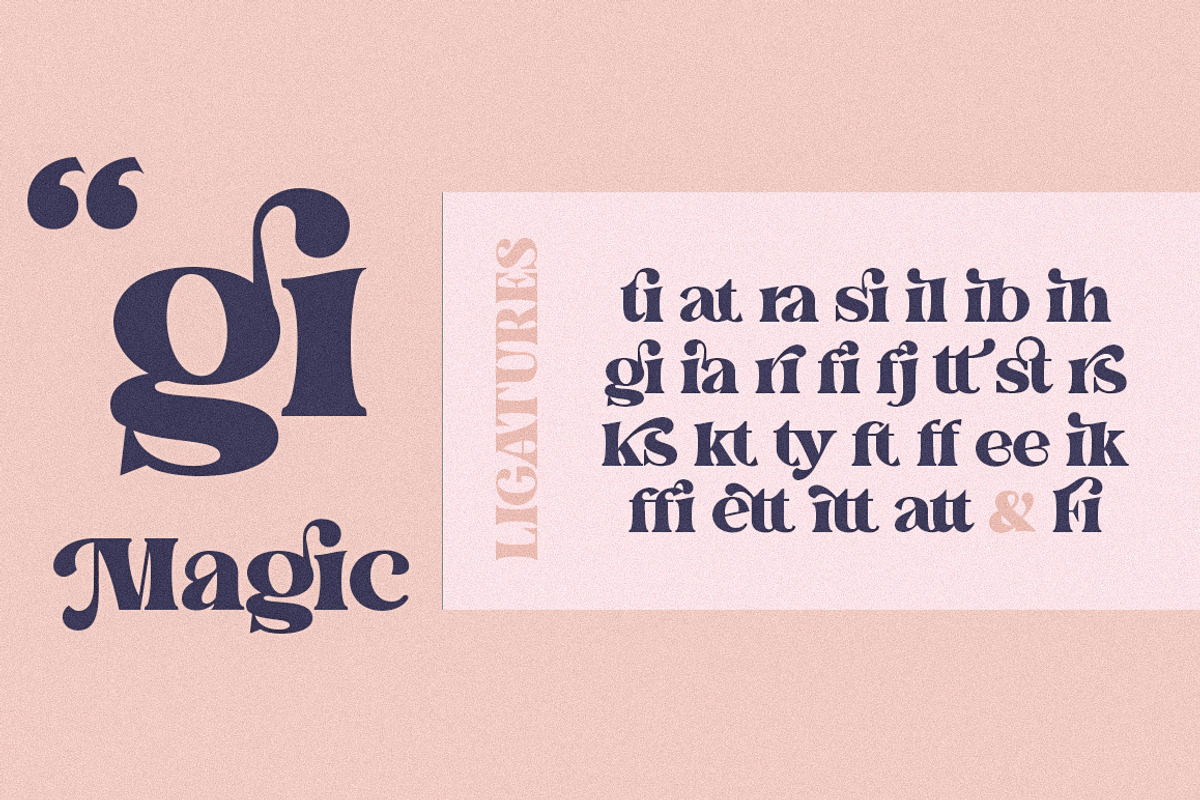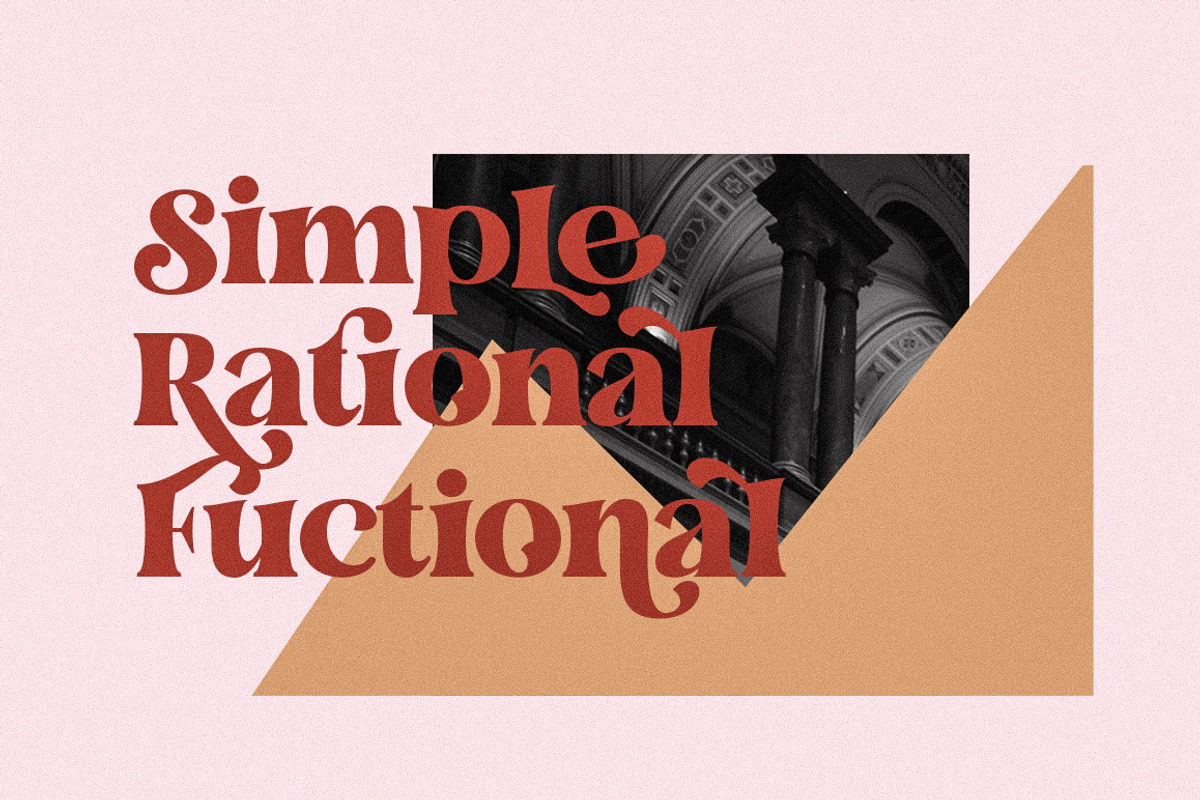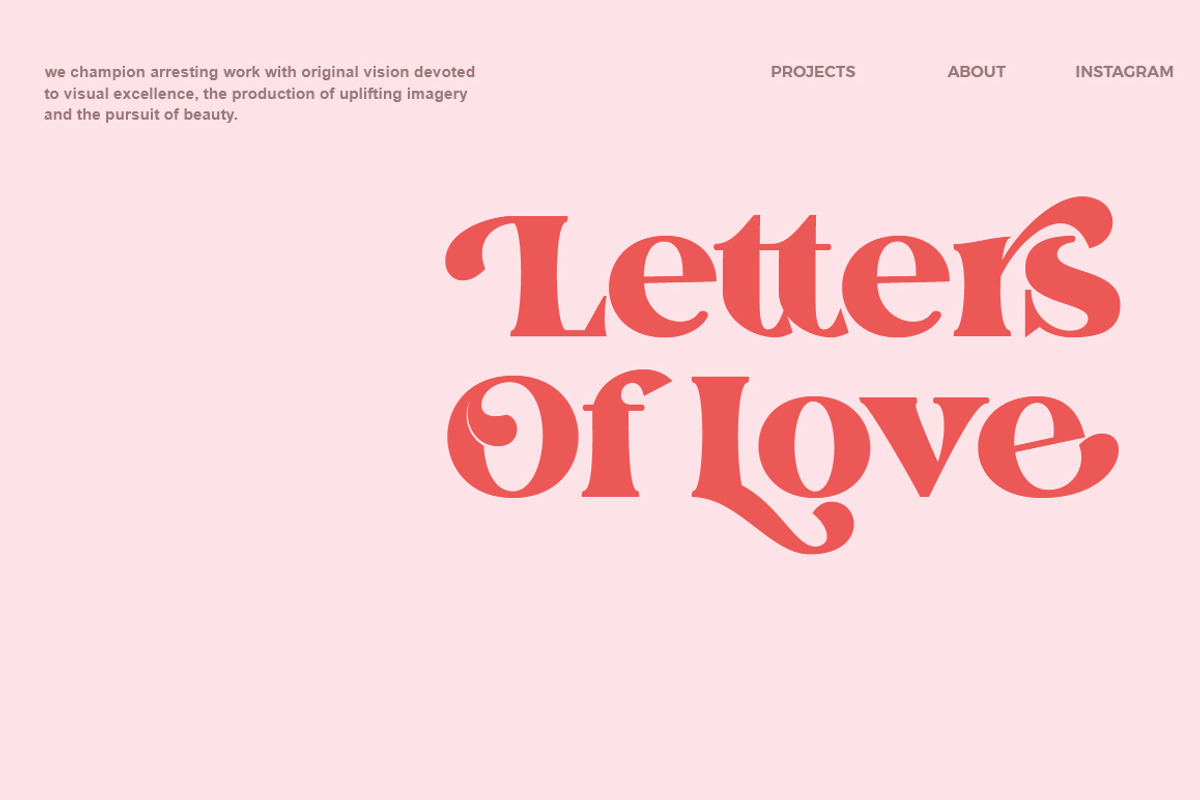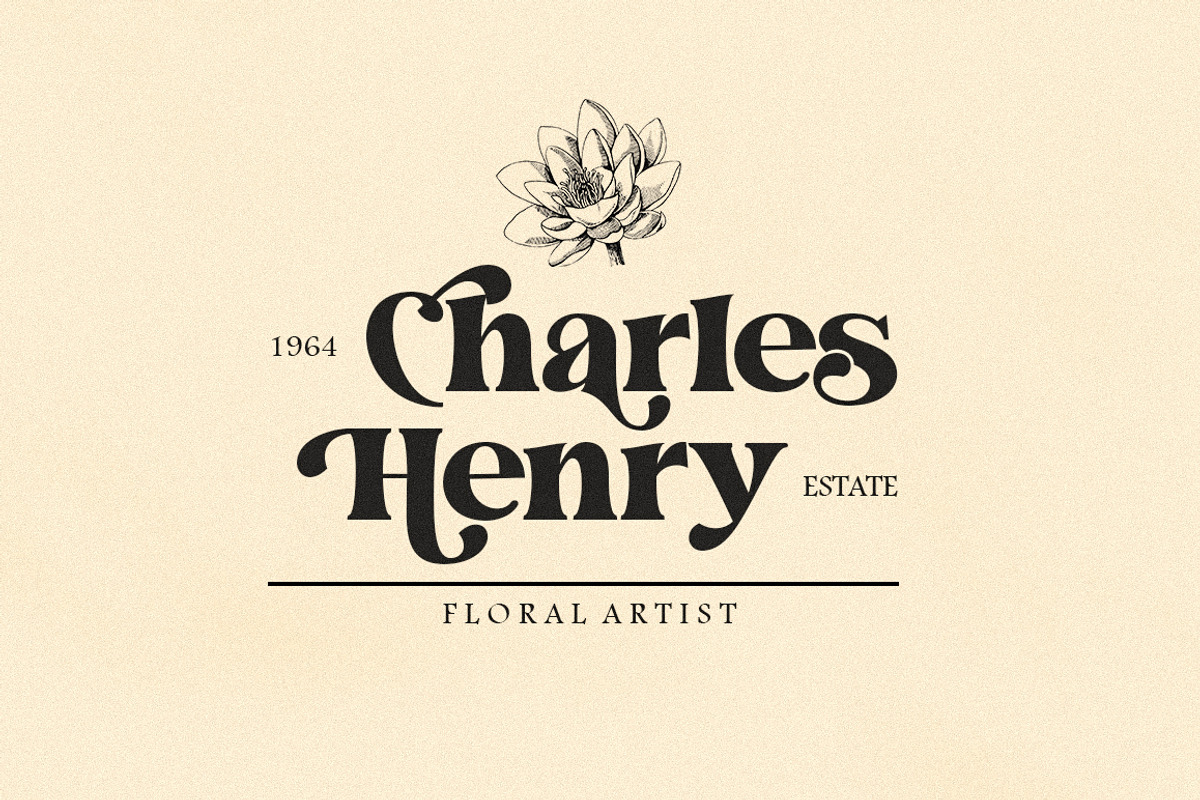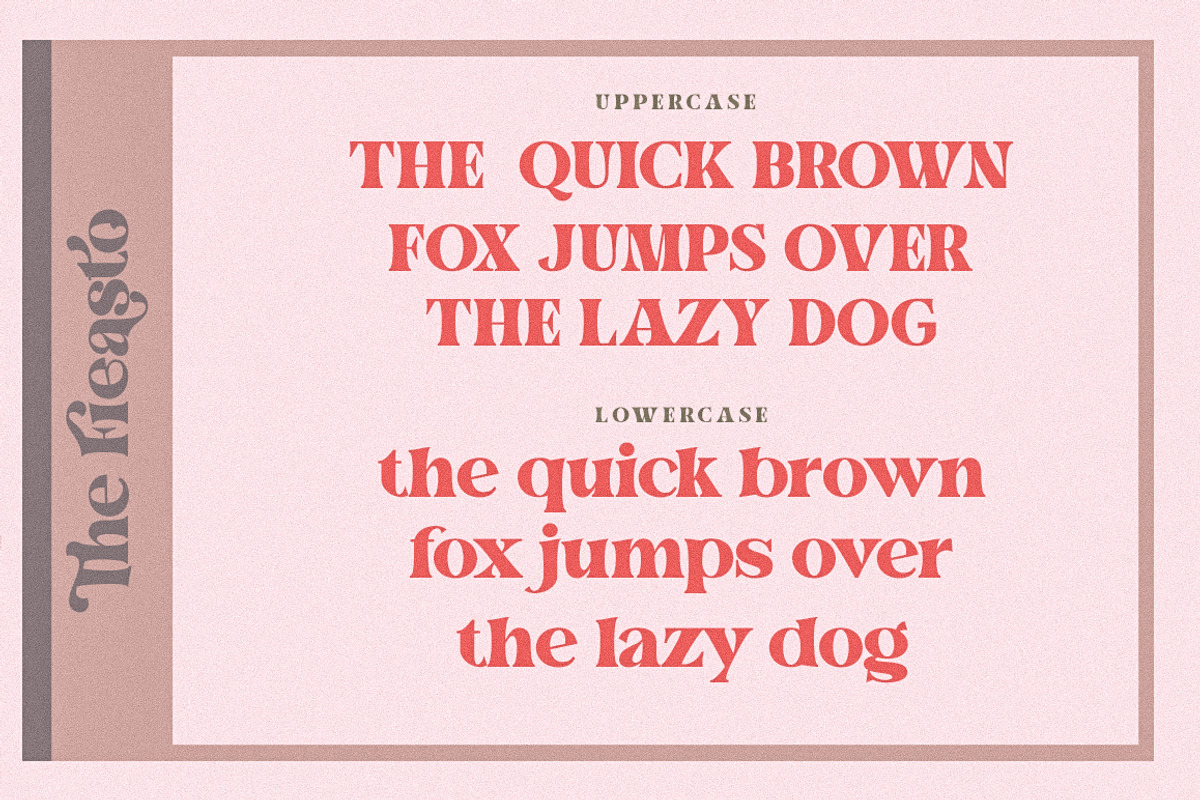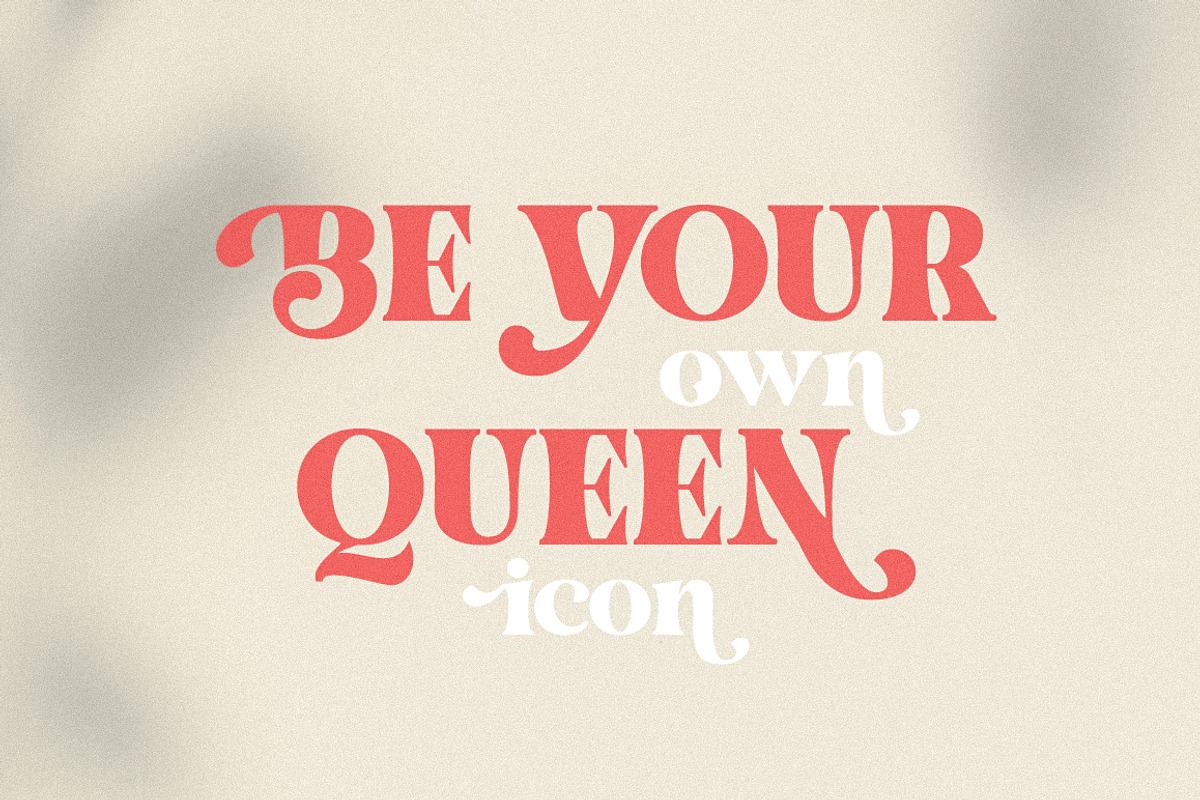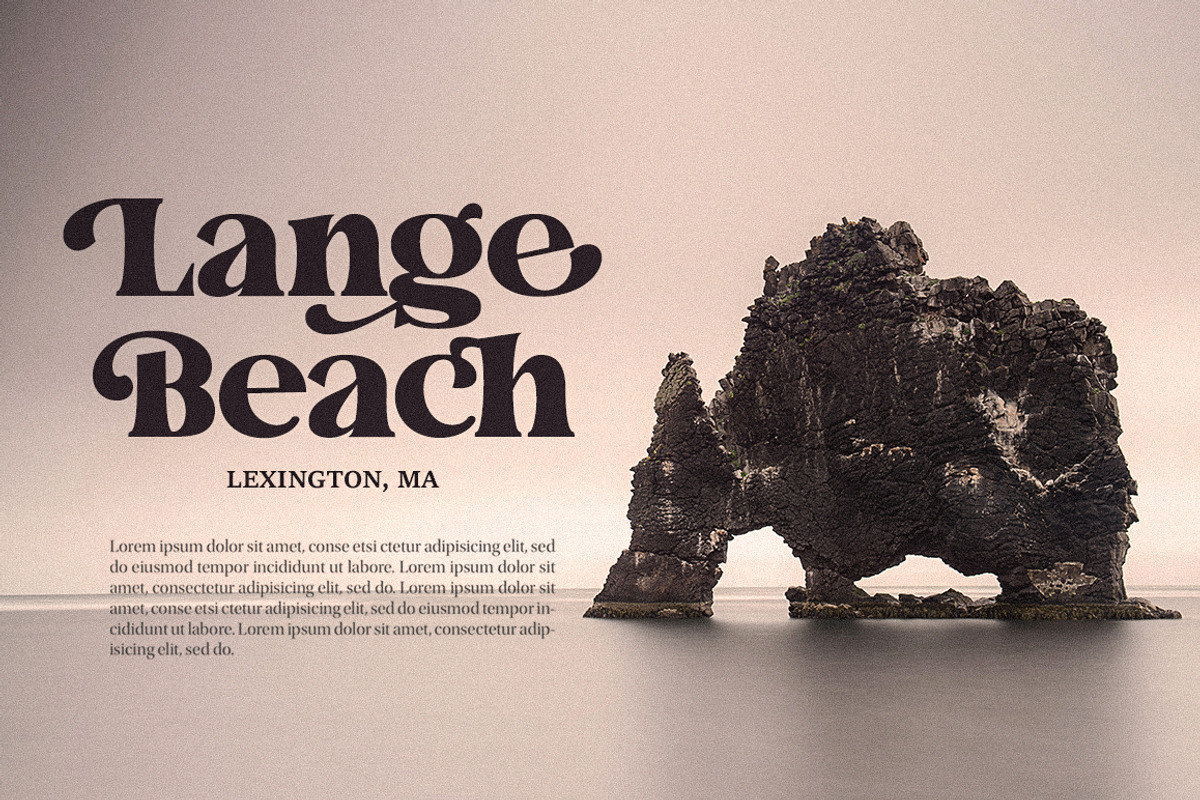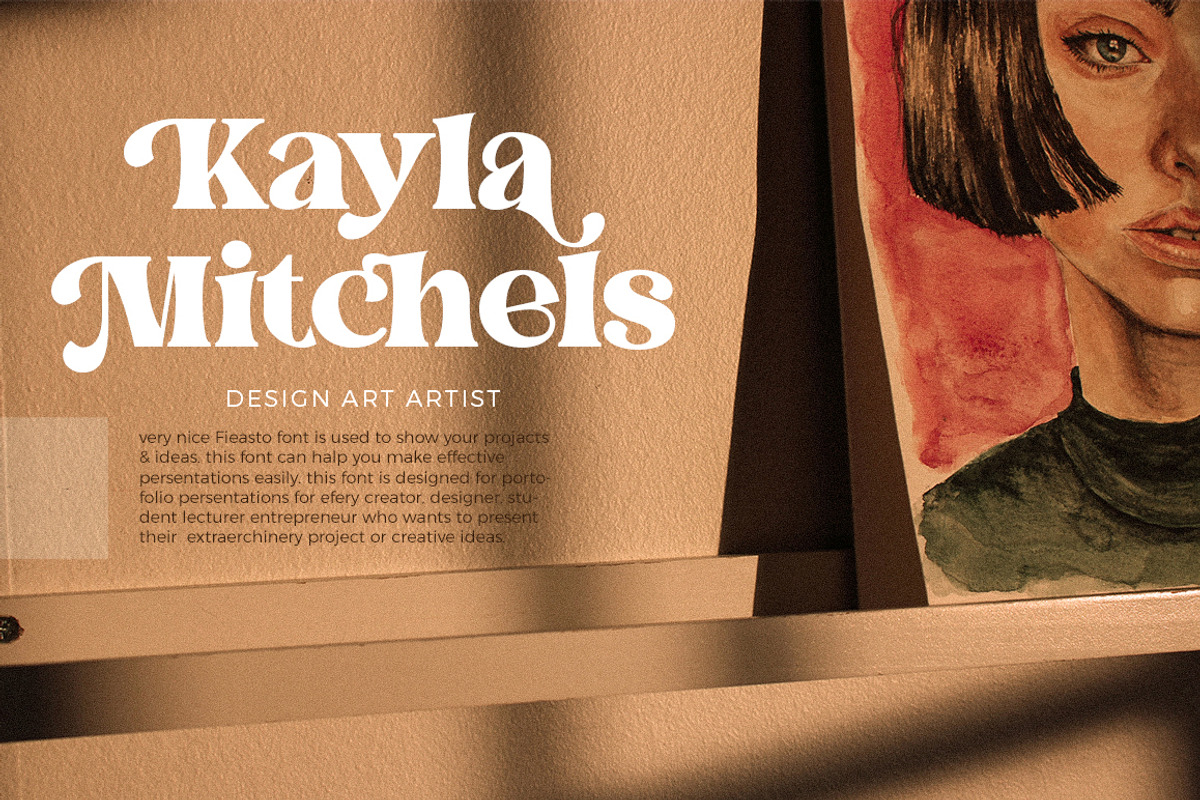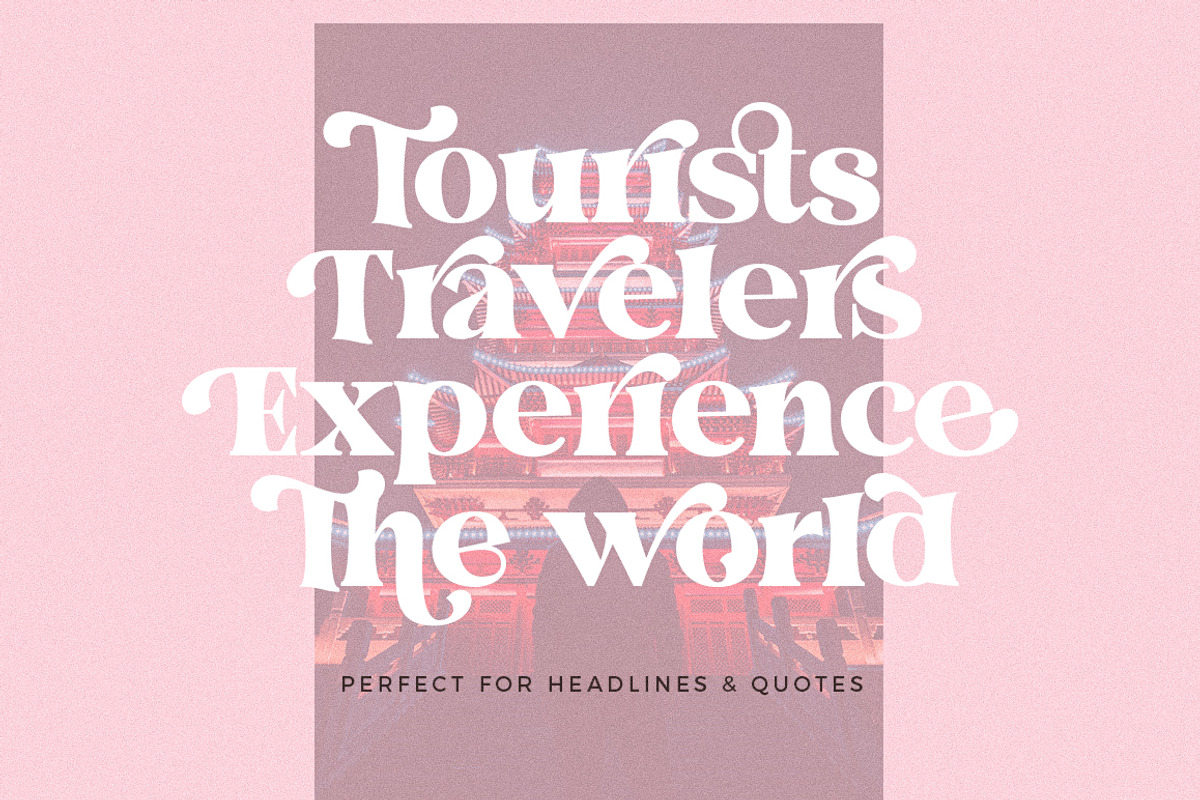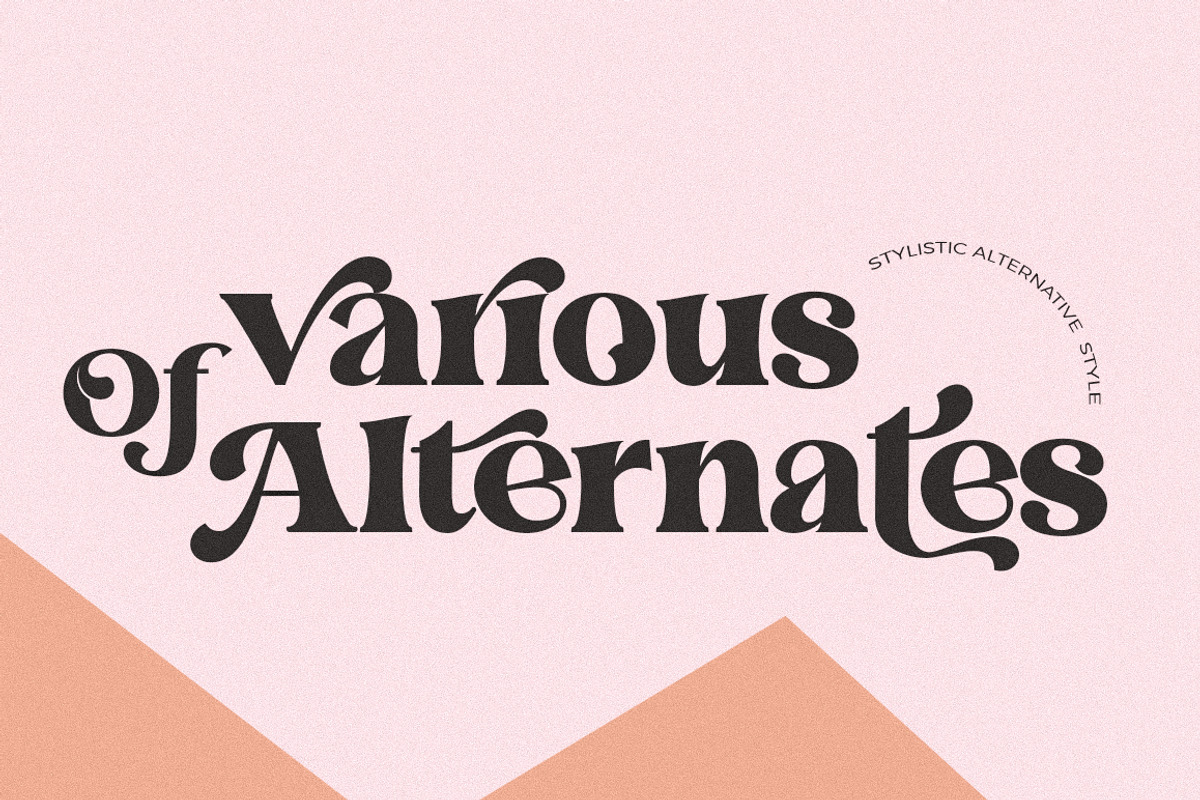
Fieasto
Introducing The Fieasto is a modern serif typeface with many styles. High contrast version of the famous Didot display that has been synonymous with fashion for decades. This font has more than 378 glyphs with multilingual letters included.
Based on modern serif fonts but by rethinking the height of lowercase letters to make this font look more fun, this font is modern and nostalgic and works great for logos, mastheads, and quotations. It's a beautiful pair with minimal serifs or lightweight script fonts.
- Uppercase and lowercase letters are full
- Numbers, Punctuation, Multilingual Accents
- Alternates Glyphs